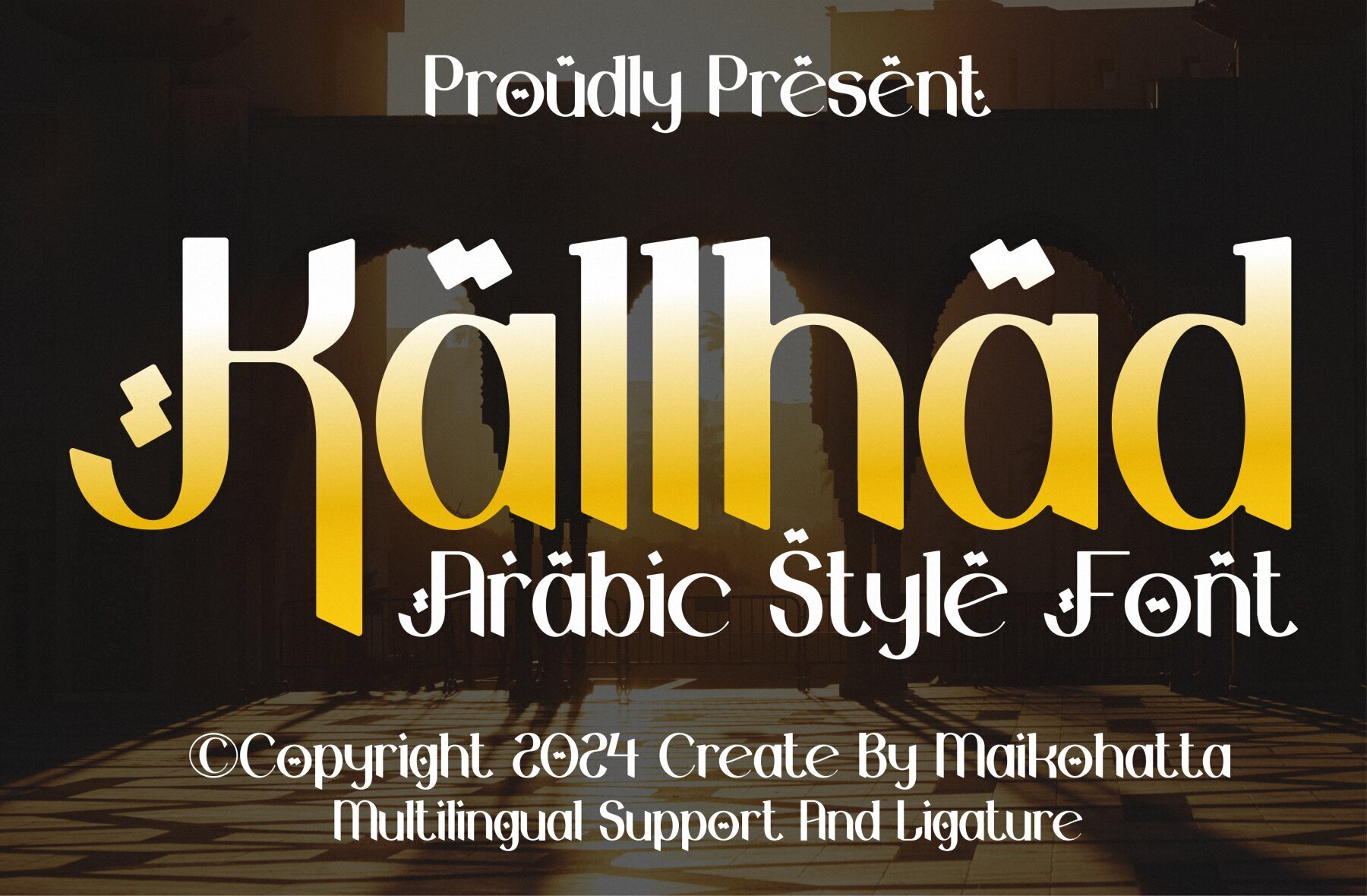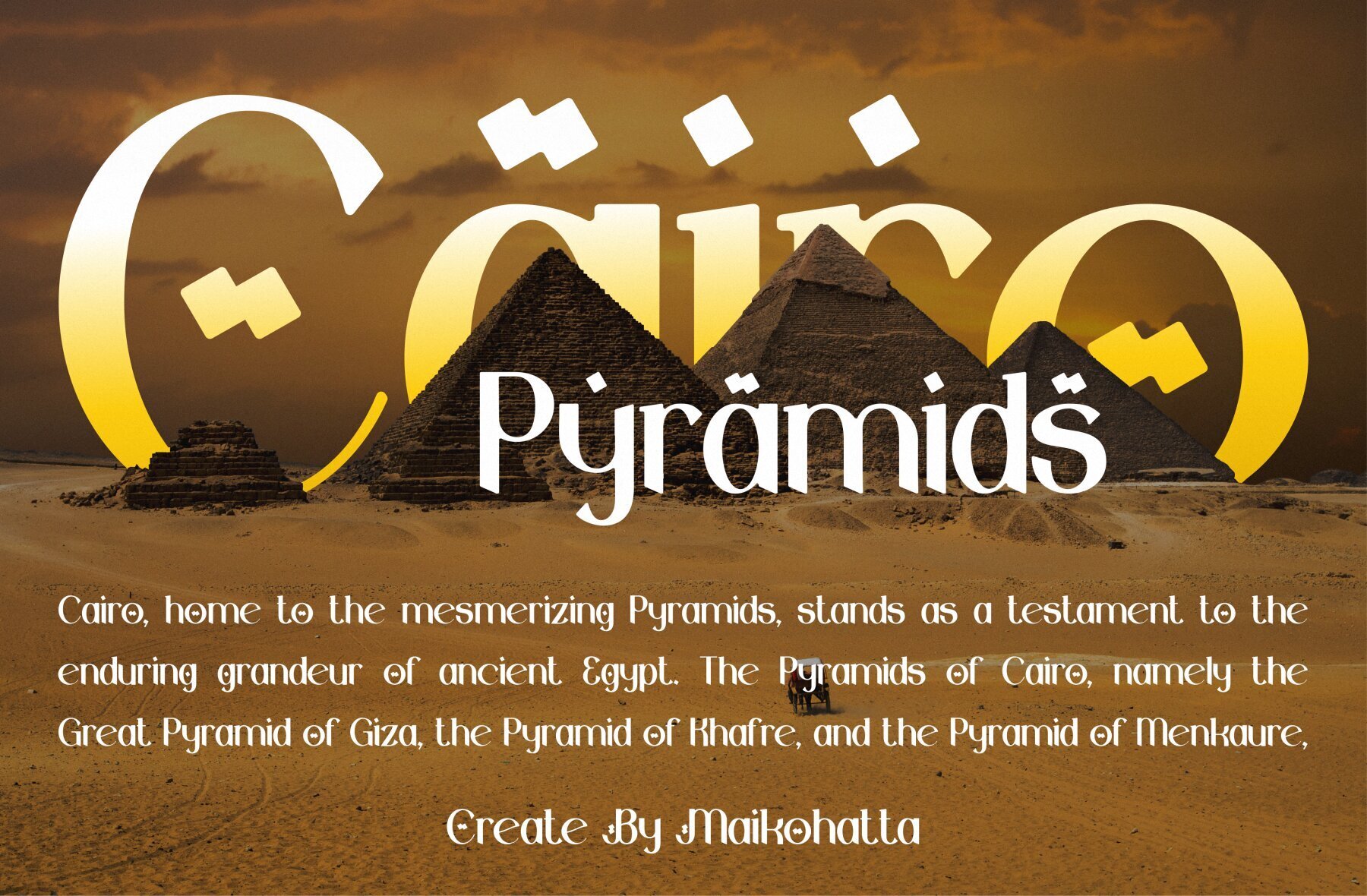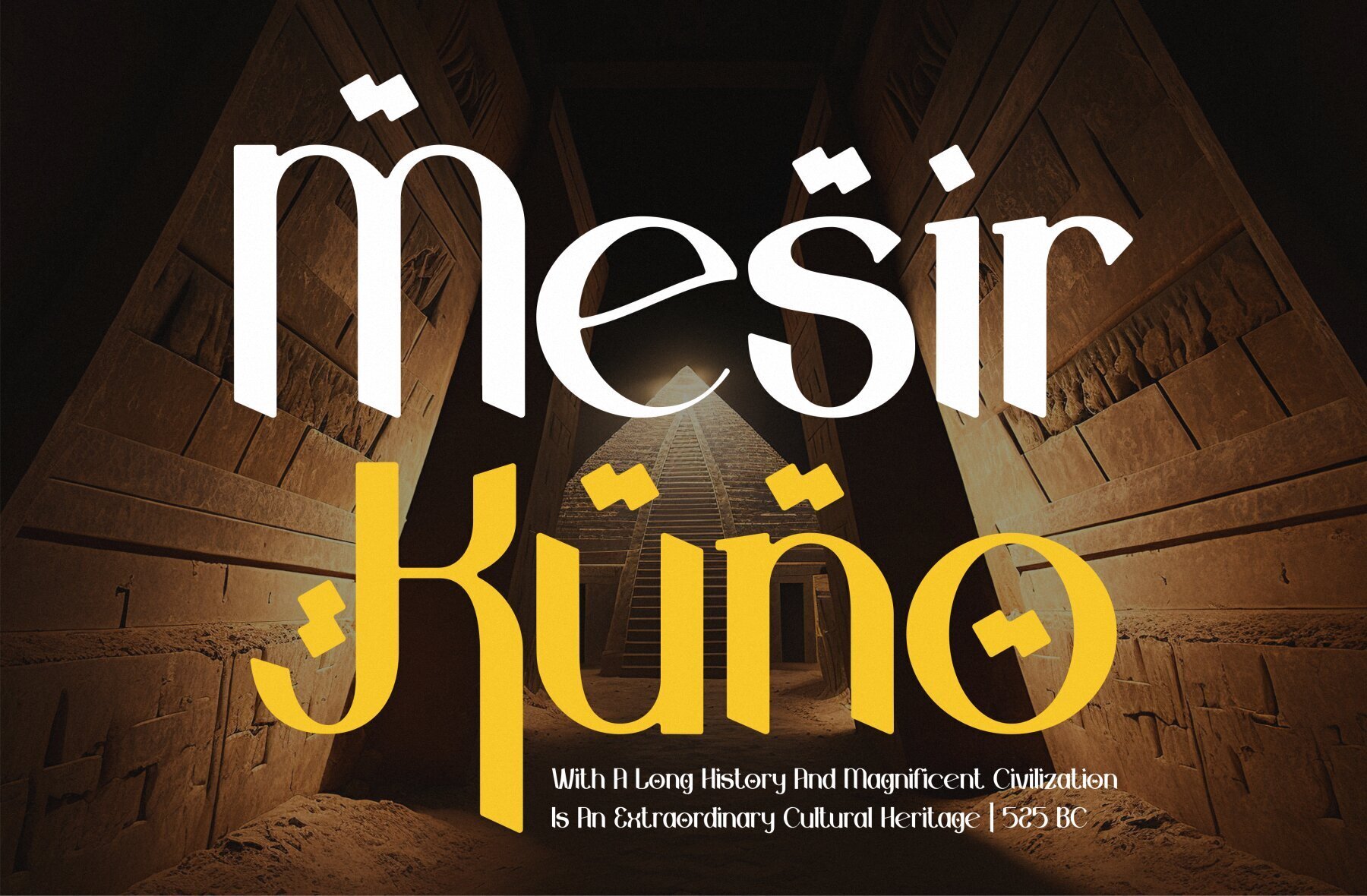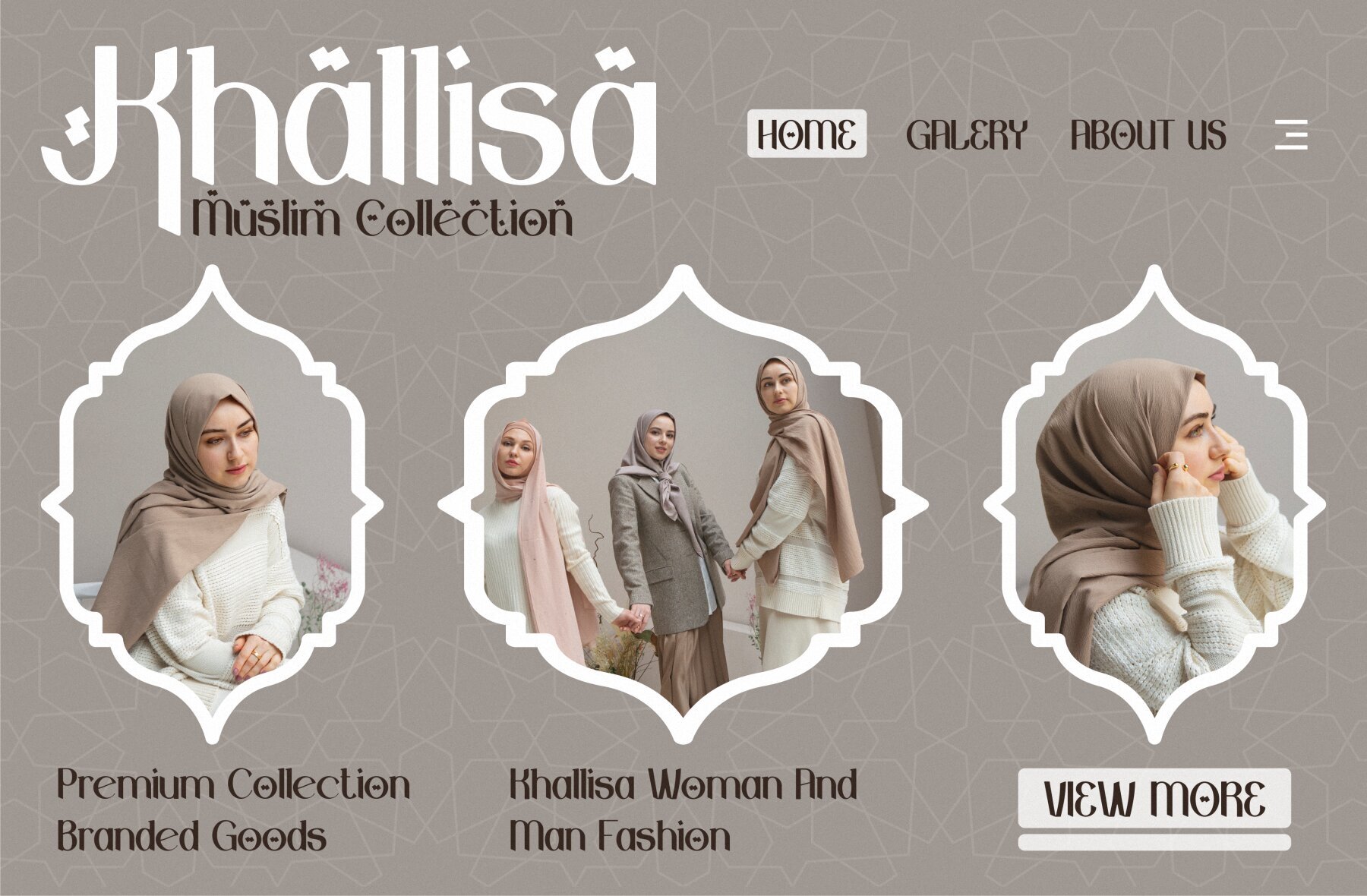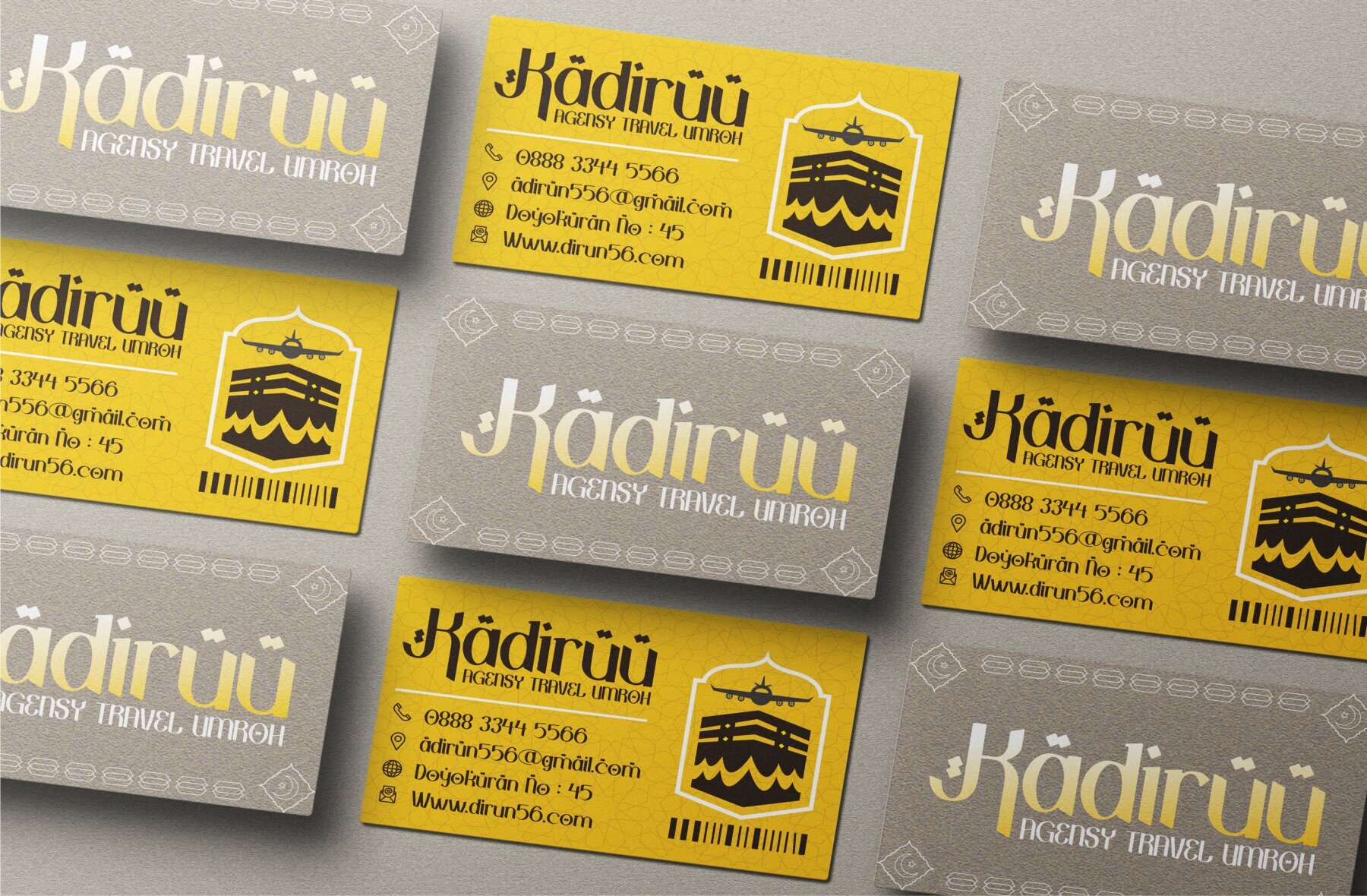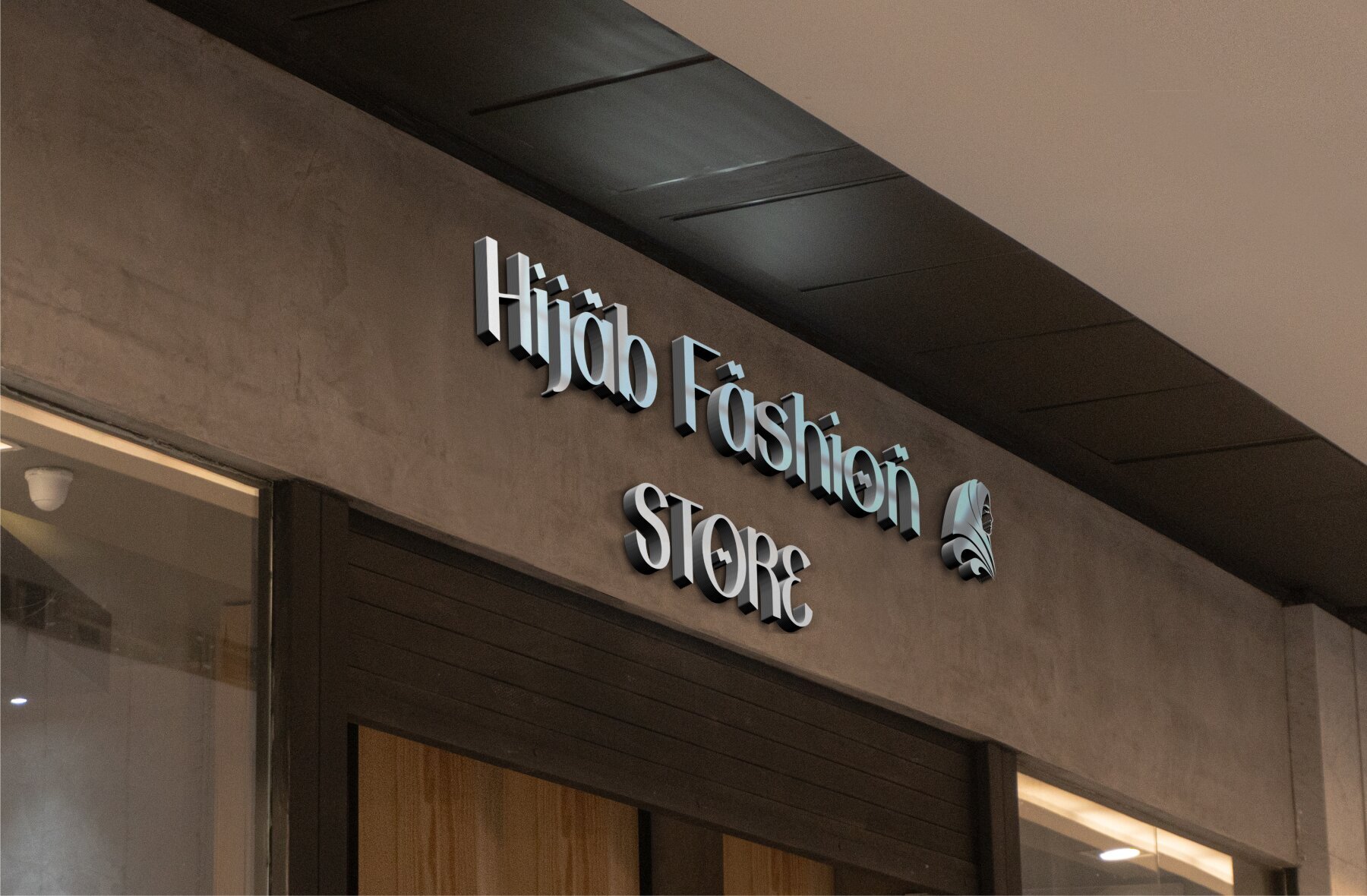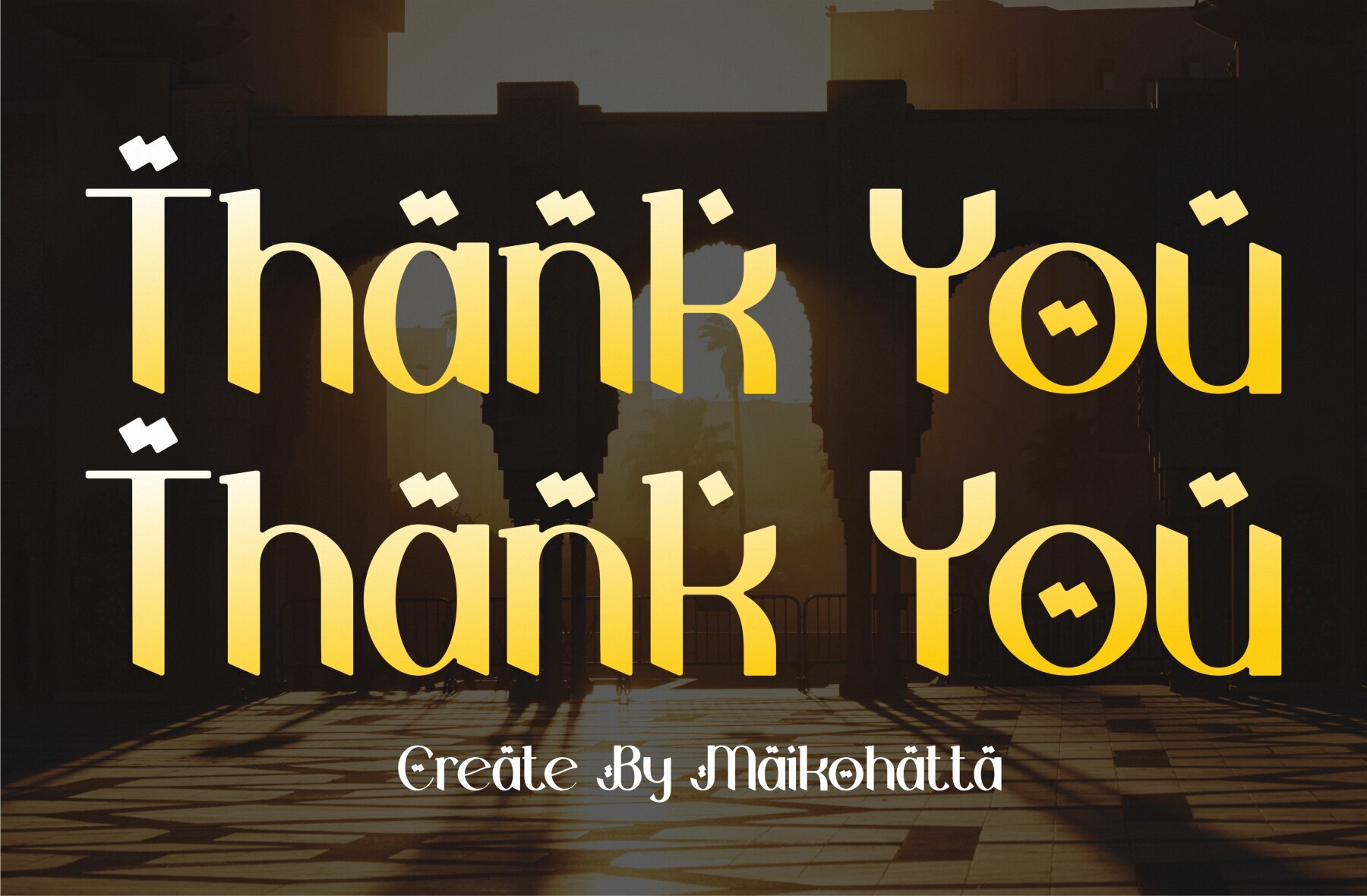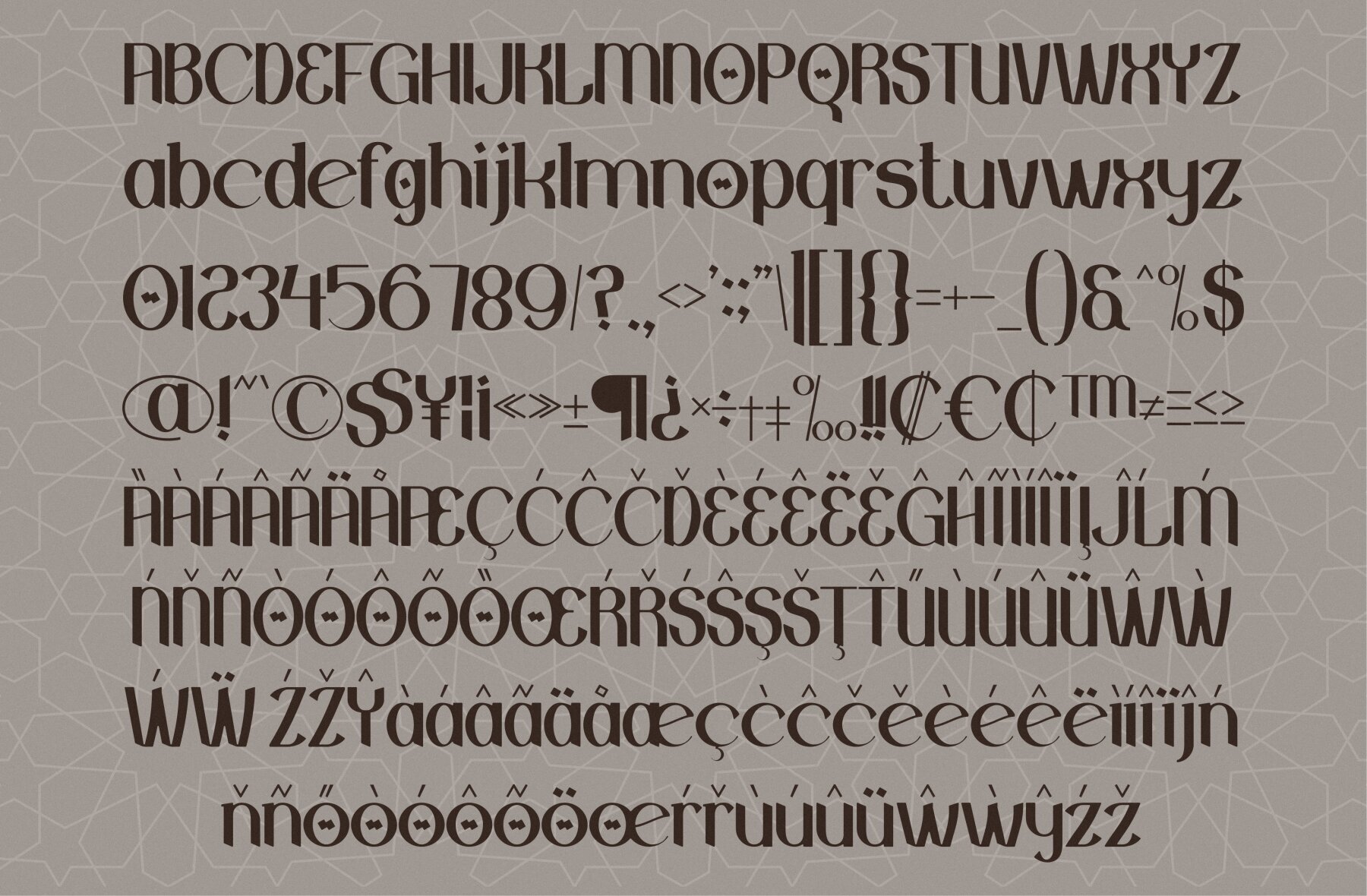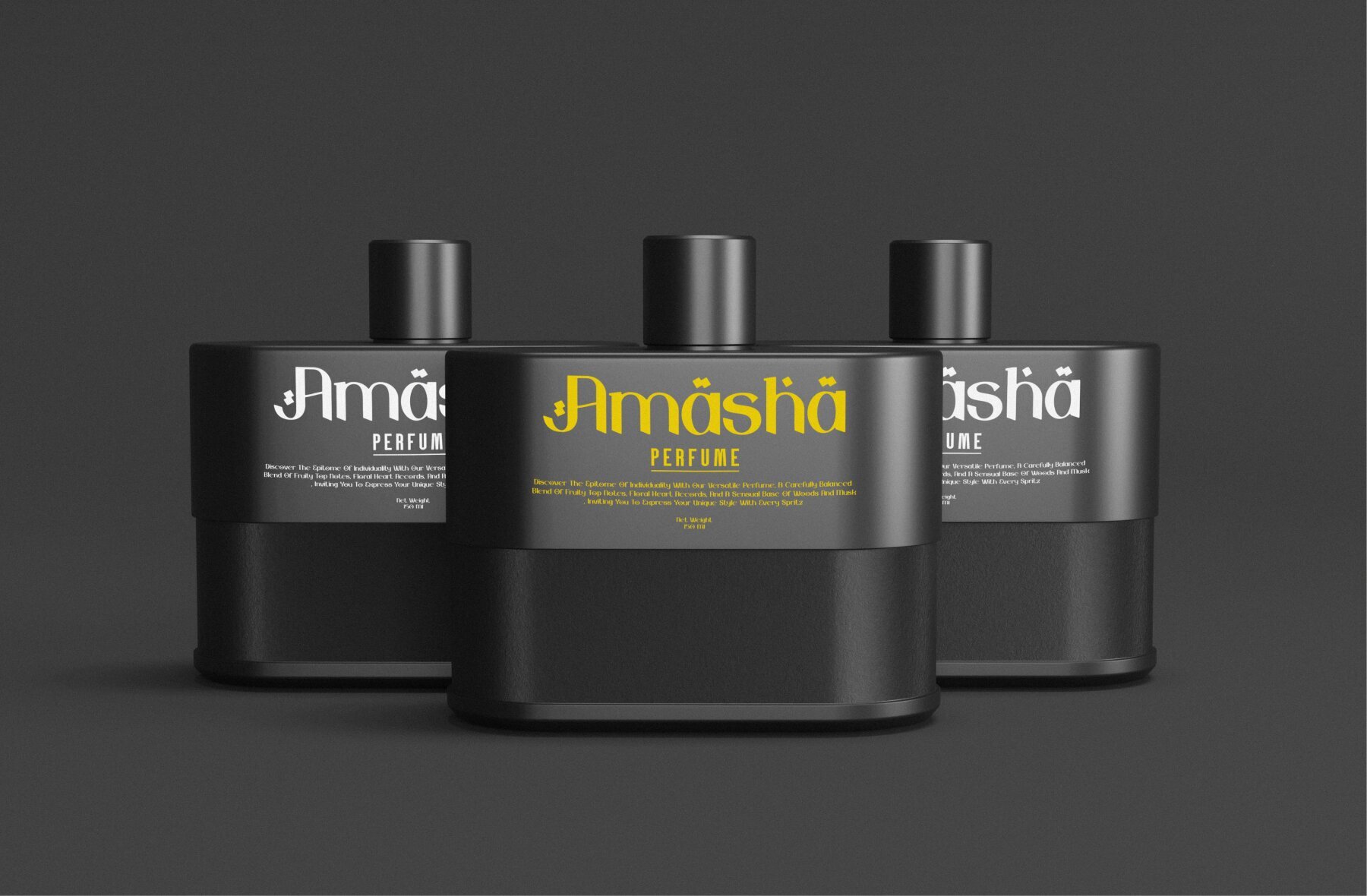
Kallhad Font
Kallhad Regular
Kallhad is a bold and authentic display font that draws inspiration from Arabic designs. It's an ideal choice for various branding projects, including logos, template designs, esports, and many more applications, due to its versatility and striking appearance.Kallhad: An Arabic Style Display Font